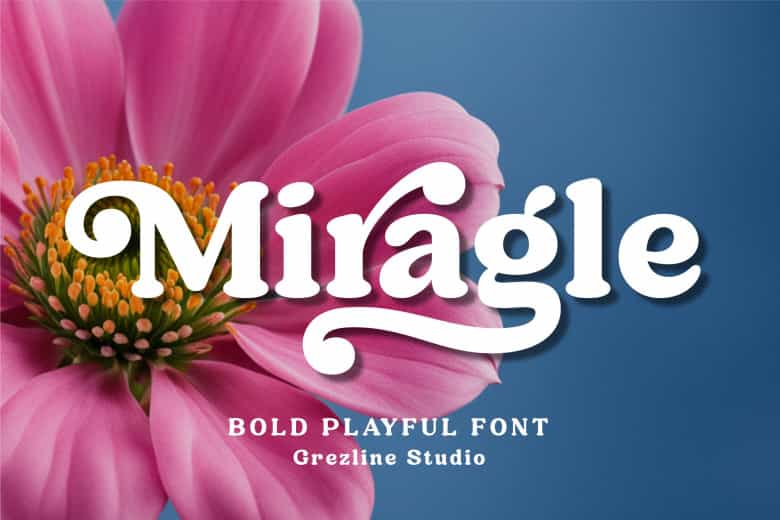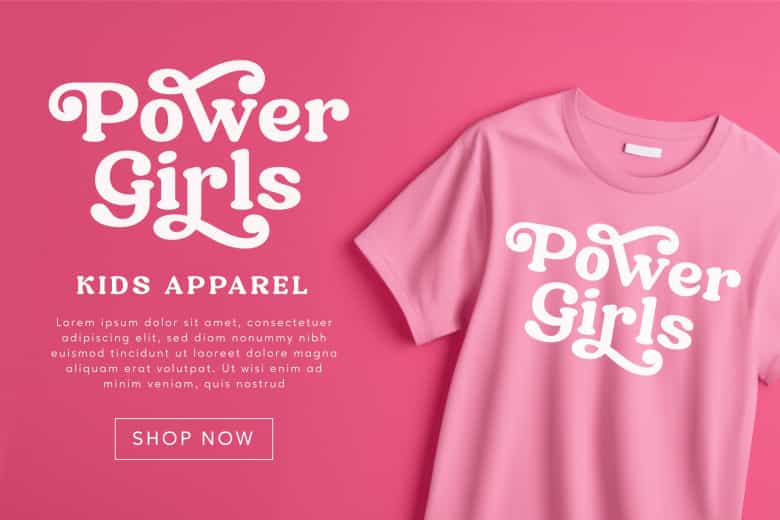
Miragle is an enjoyable and fashionable display typeface which seamlessly marries nostalgia and modernity. The bold fonts exude an edgy vintage aesthetic while simultaneously incorporating contemporary trends. Perfect for projects looking to create an energetic retro-chic aesthetic,